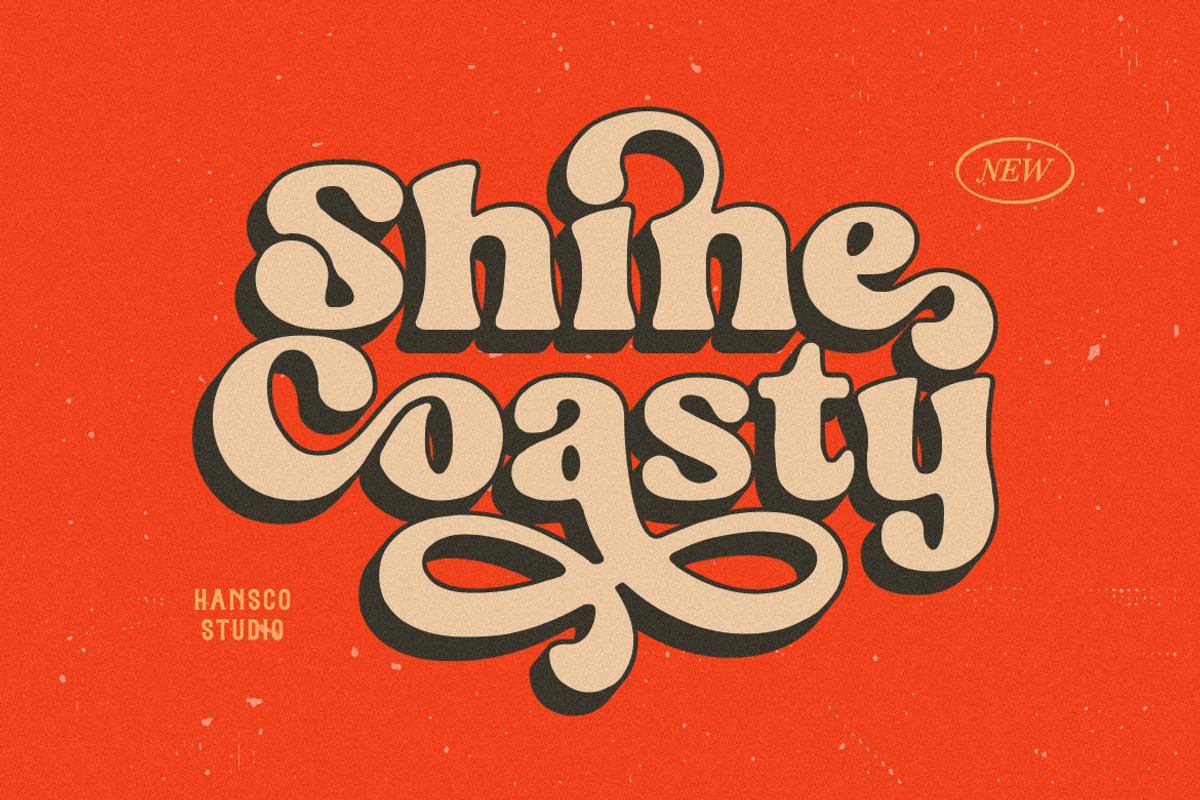
Shine Coasty – Retro Serif Font Free Download is a stylish and nostalgic serif typeface with a classic retro feel. Featuring strong, geometric letterforms combined with vintage-inspired curves, this font is perfect for retro branding, posters, advertisements, product packaging, and any project that needs a bold, old-school aesthetic.
Shine Coasty – Retro Serif Font Free Download brings the charm of mid-century design into modern projects, providing a perfect blend of vintage flair and contemporary readability.